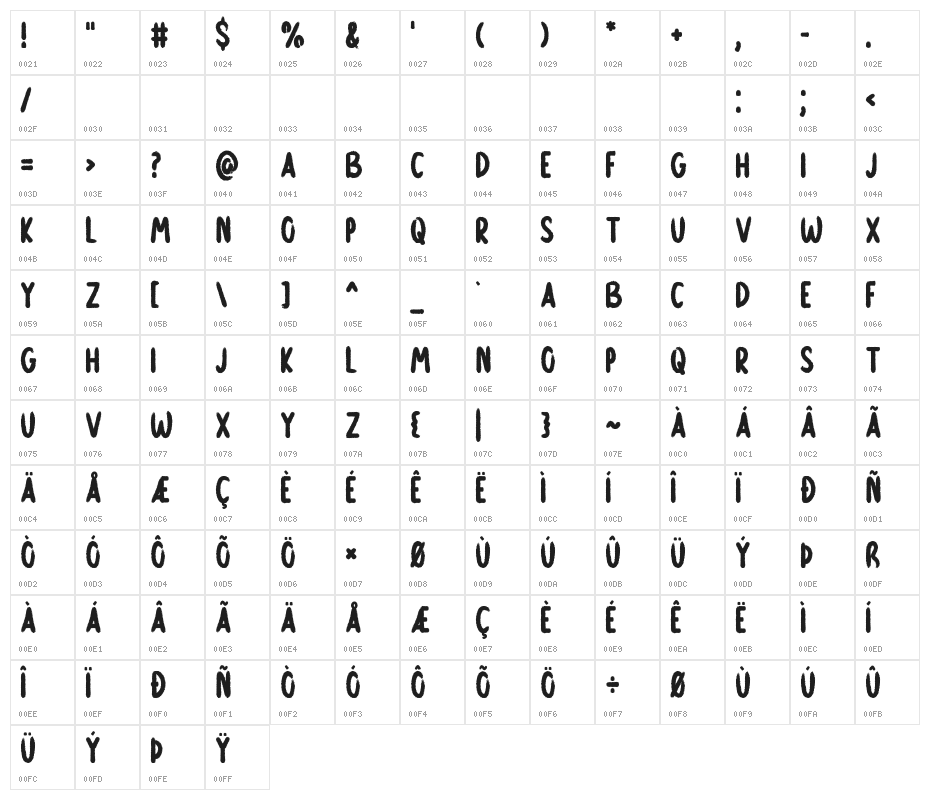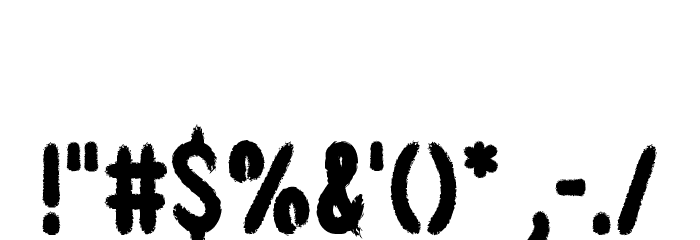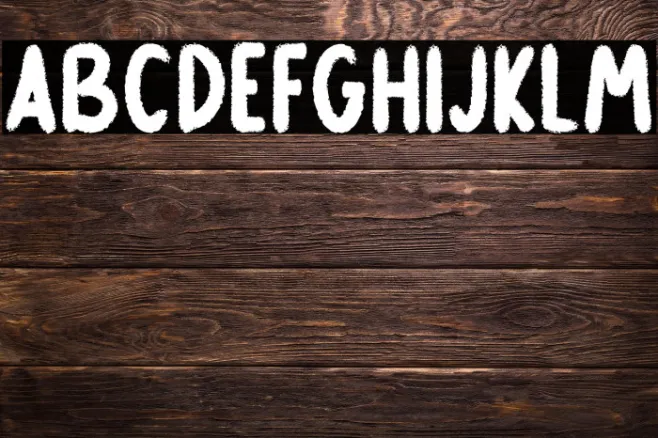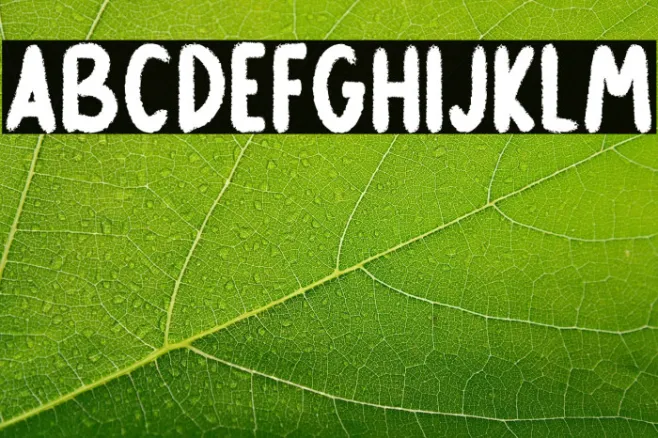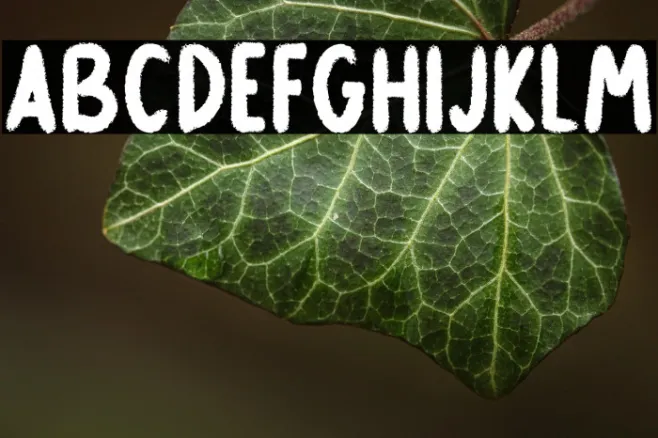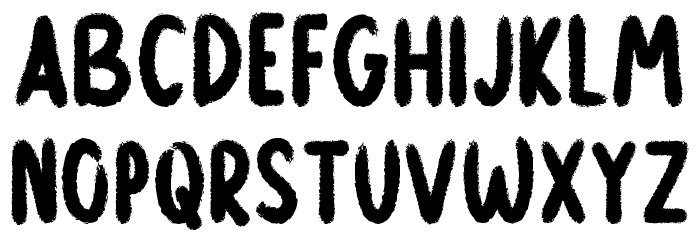
Keep Me Font
Keep Me Description
This font features a bold and expressive style with a hand-painted appearance, characterized by its thick strokes and slightly irregular edges. The letters have a dynamic and energetic feel, making them stand out with a sense of movement. The uppercase and lowercase letters maintain a consistent weight, contributing to a cohesive look. The font includes a full set of uppercase and lowercase letters, numbers, and a variety of special characters, allowing for versatile use in different contexts. Its bold nature makes it suitable for attention-grabbing headlines and creative projects.
| Proposed Projects | Ideal for posters, branding, social media graphics, and any project requiring a bold, artistic touch. |